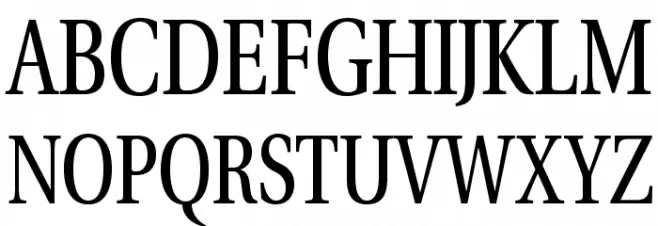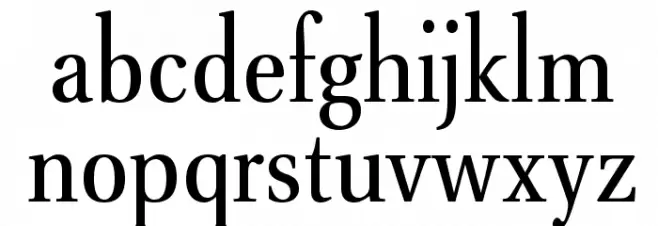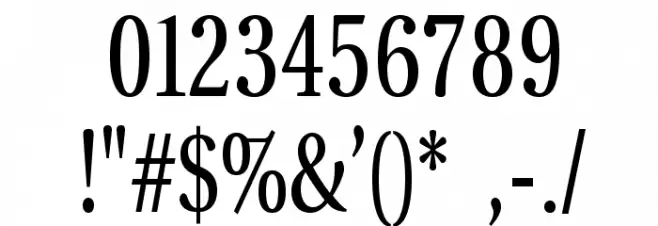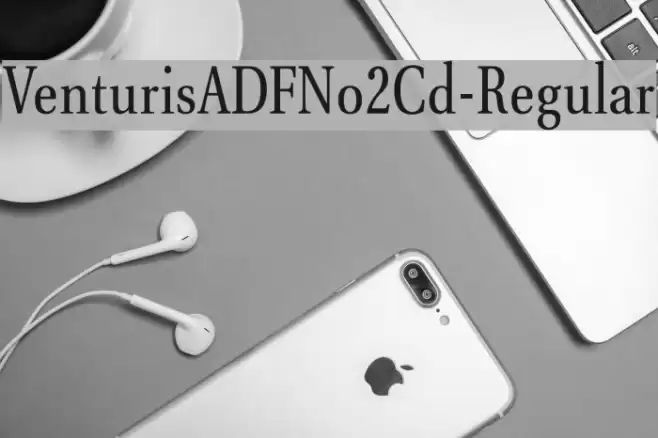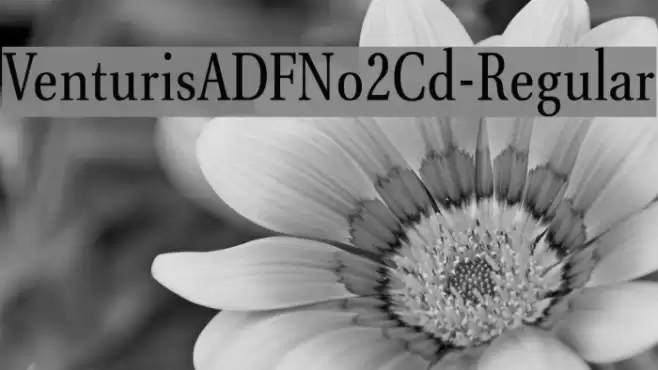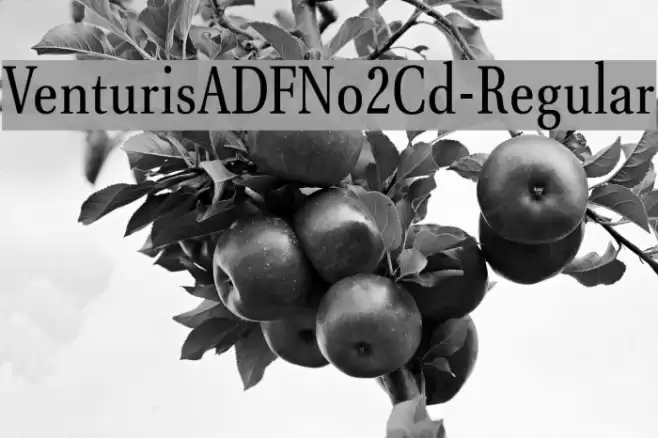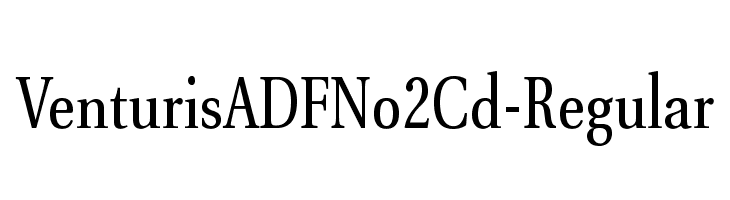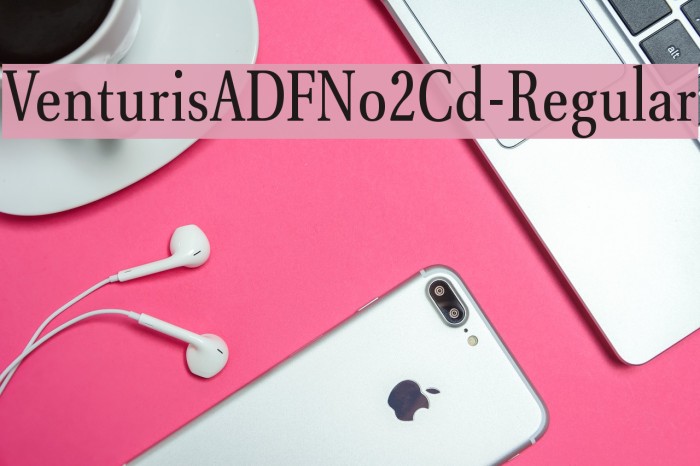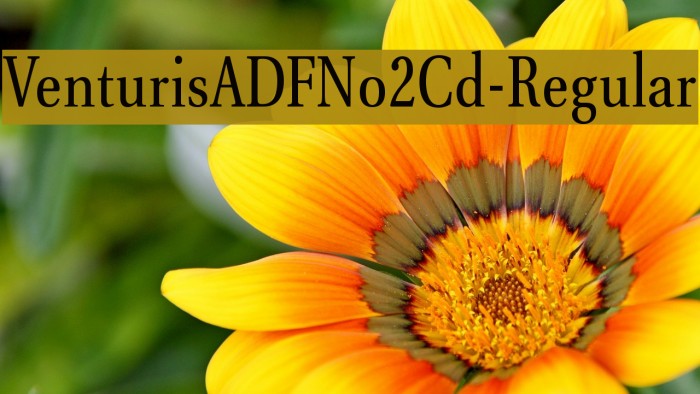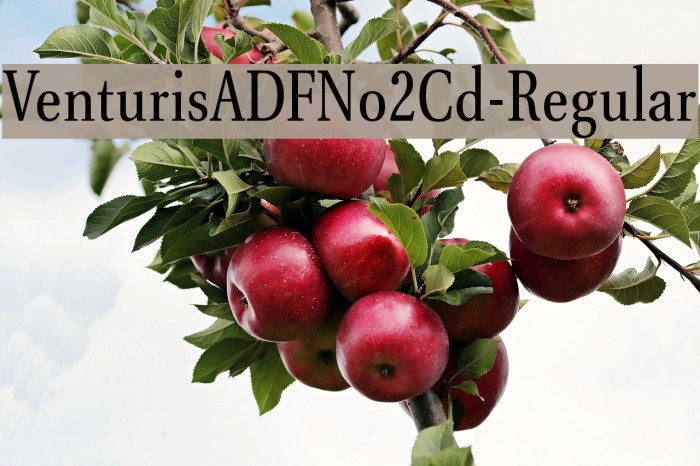
VenturisADFNo2Cd-Regular
This typeface presents a classic serif design with elegant and refined strokes. The letters exhibit a traditional structure, characterized by a moderate contrast between thick and thin lines, which enhances readability. The serifs are well-defined, adding a touch of sophistication and formality. The uppercase letters are bold and commanding, while the lowercase letters maintain a balanced and harmonious appearance. Numerals are clear and distinct, ensuring legibility in various contexts. The special characters are crafted with precision, maintaining the overall aesthetic of the typeface.
A classic serif typeface with elegant strokes and moderate contrast.
- Proposed Projects: Ideal for editorial design, book publishing, formal invitations, and branding projects that require a touch of elegance.
- Category: Serif
- Overall Style: Classic